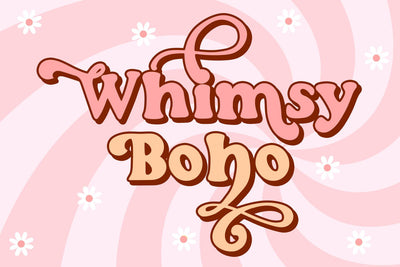
Whimsy Boho - A Retro Font
Whimsy Boho - A Handwritten Retro Font With Stylistic Alternates
Unleash your inner free spirit with "Whimsy Boho," a captivating handwritten font that effortlessly captures the essence of retro style. This delightful typeface invites you on a journey to embrace your creativity and embrace a carefree bohemian spirit. With stylistic alternates adorned with graceful swashes, "Whimsy Boho" adds a touch of whimsical elegance to your designs. Let your imagination soar with the enchanting charm of this unique font.
- Whimsy Boho - Comes with Uppercase A-Z and lowercase a-z letters, 0-9 numbers, stylistic alternates, limited punctuation and supports Western European Languages